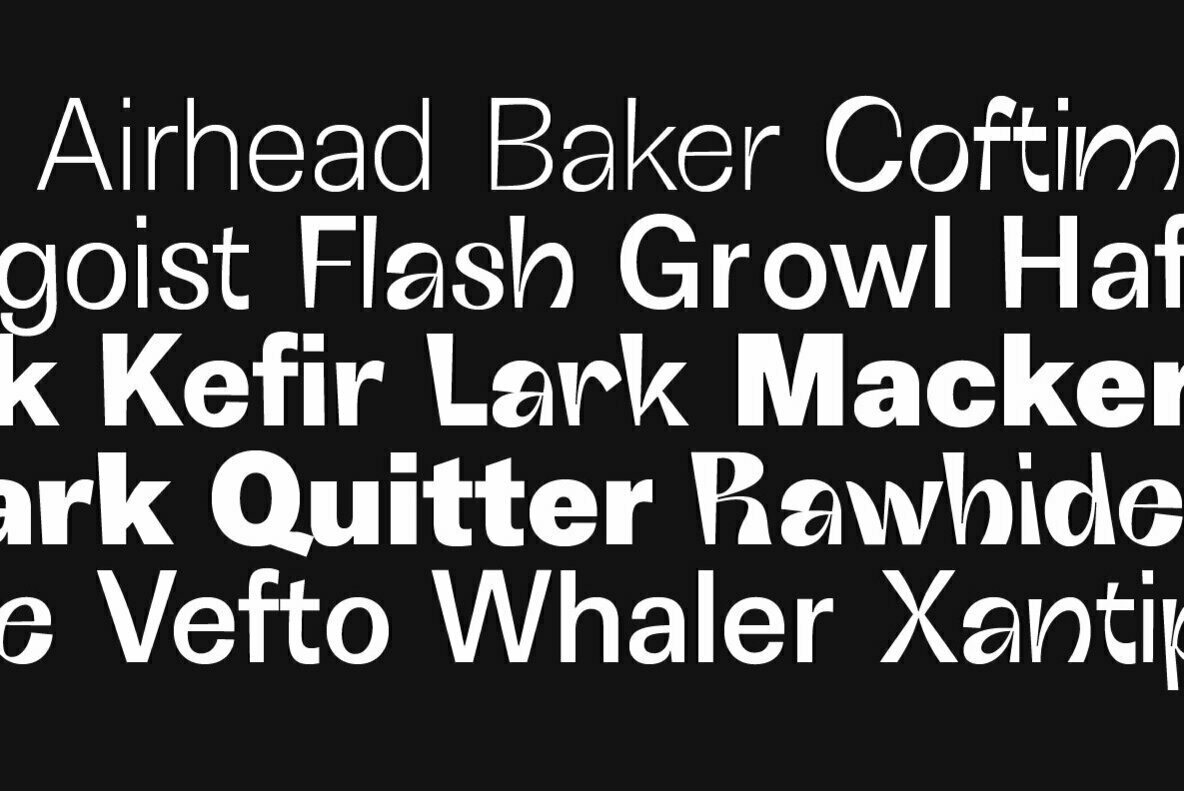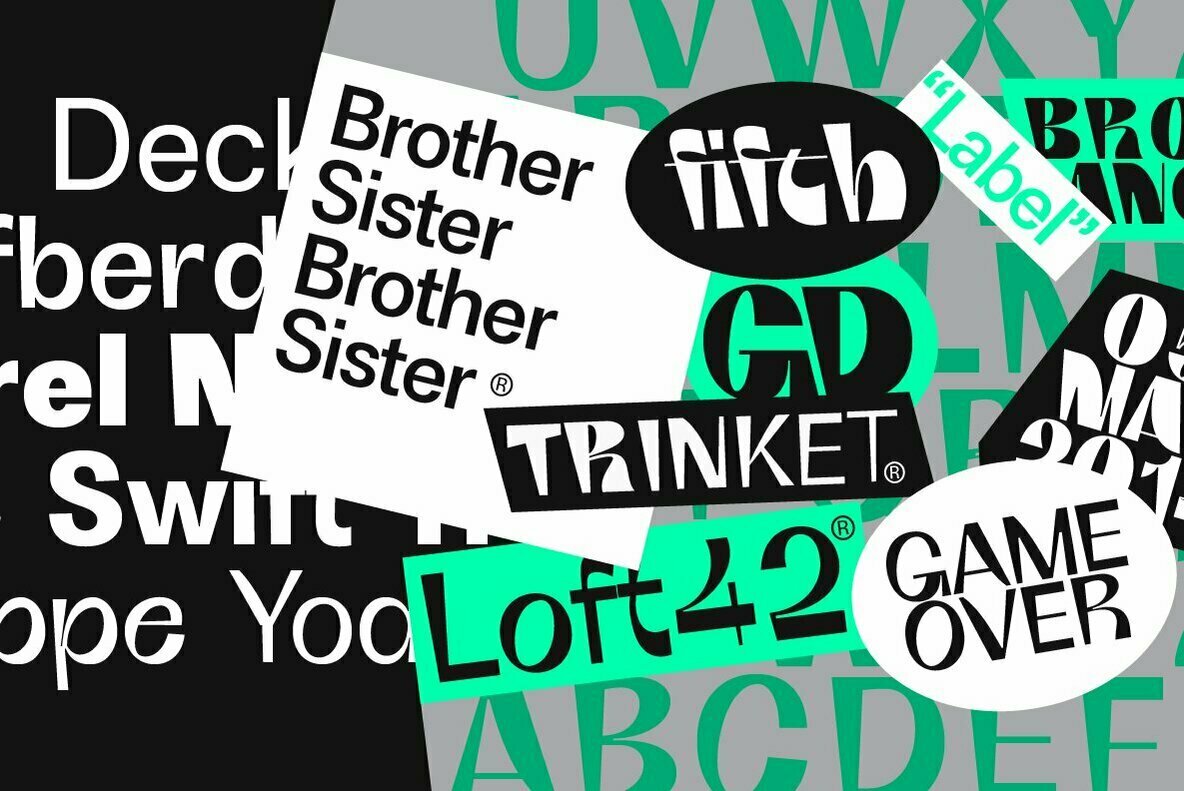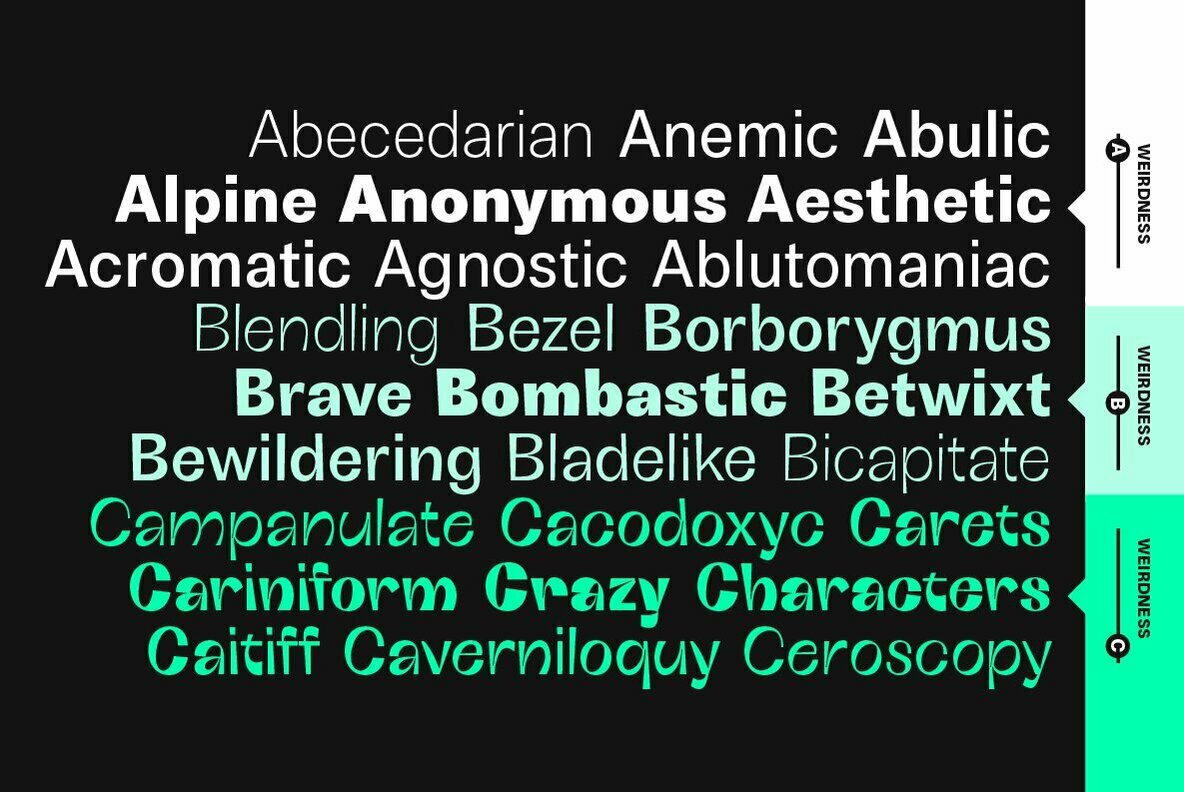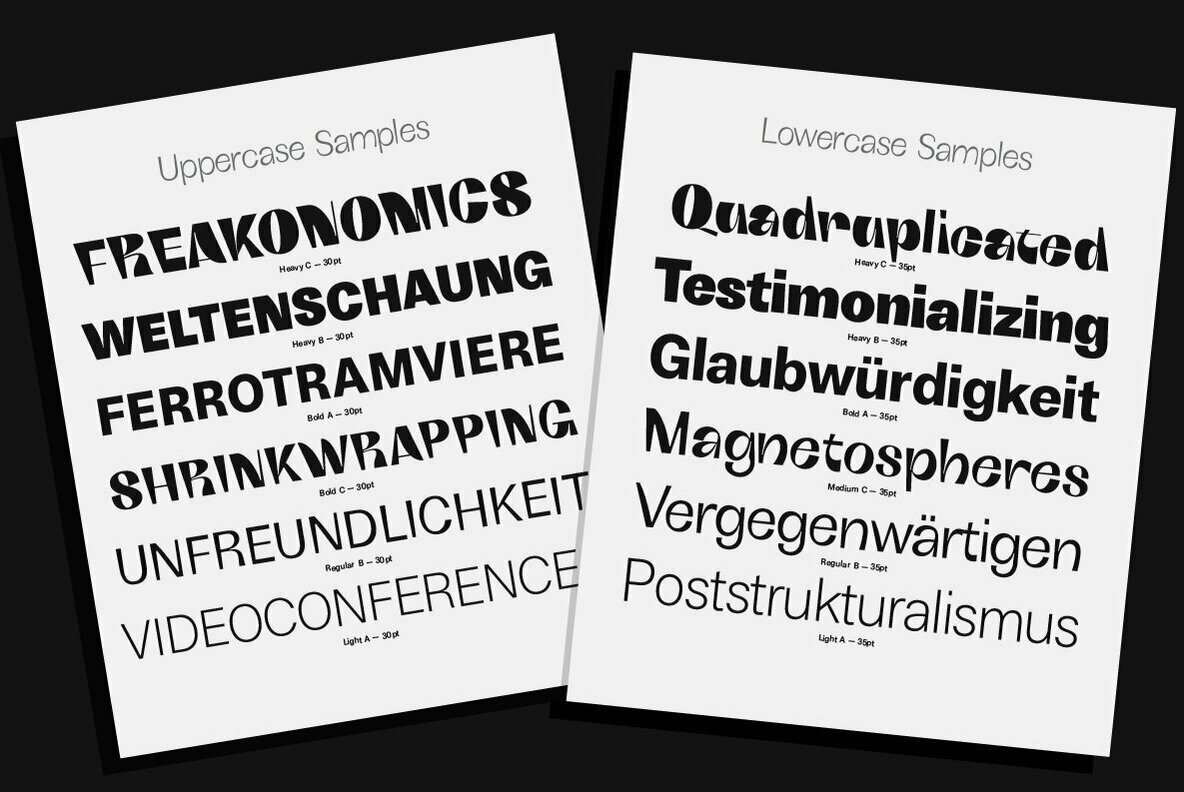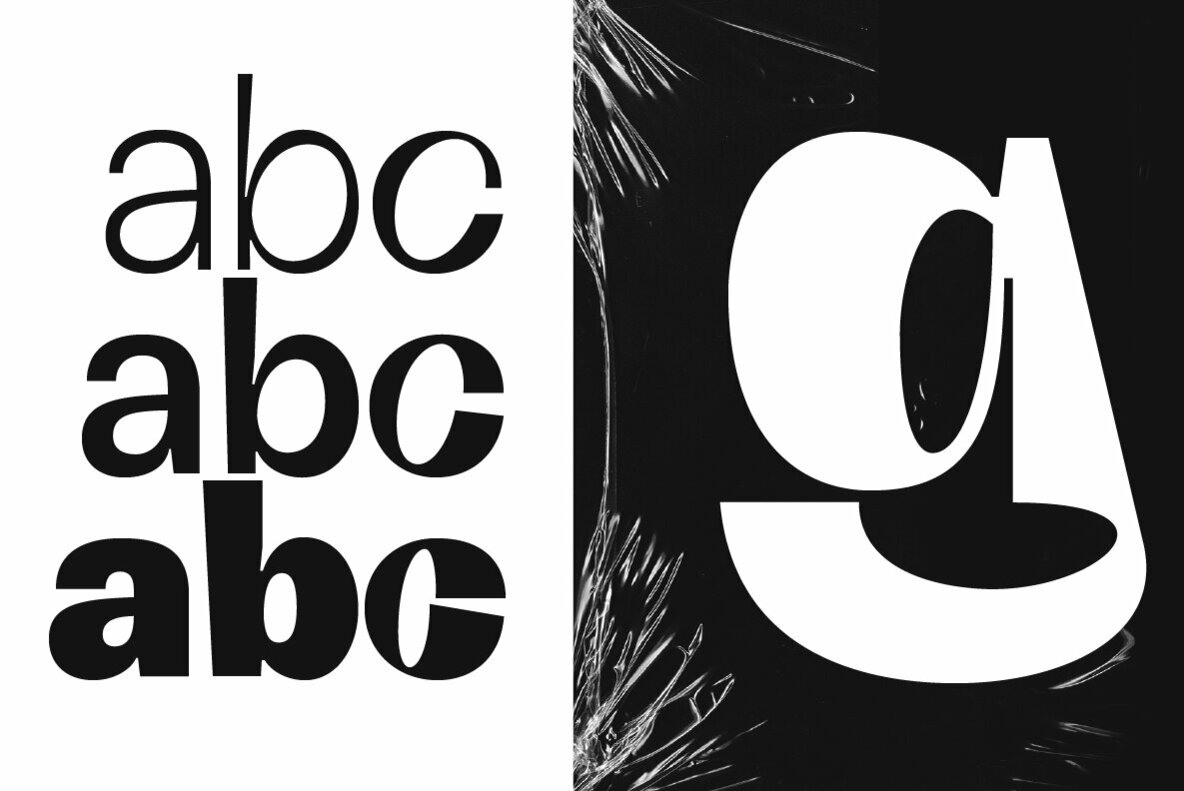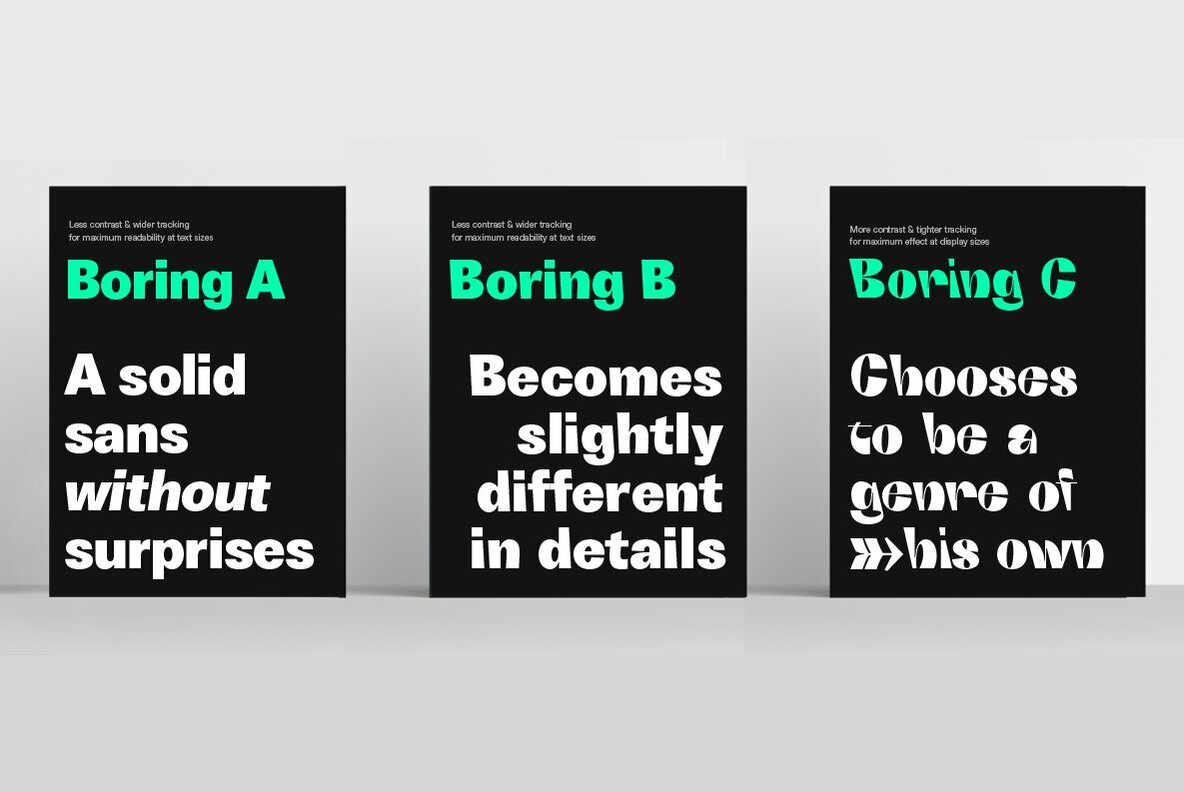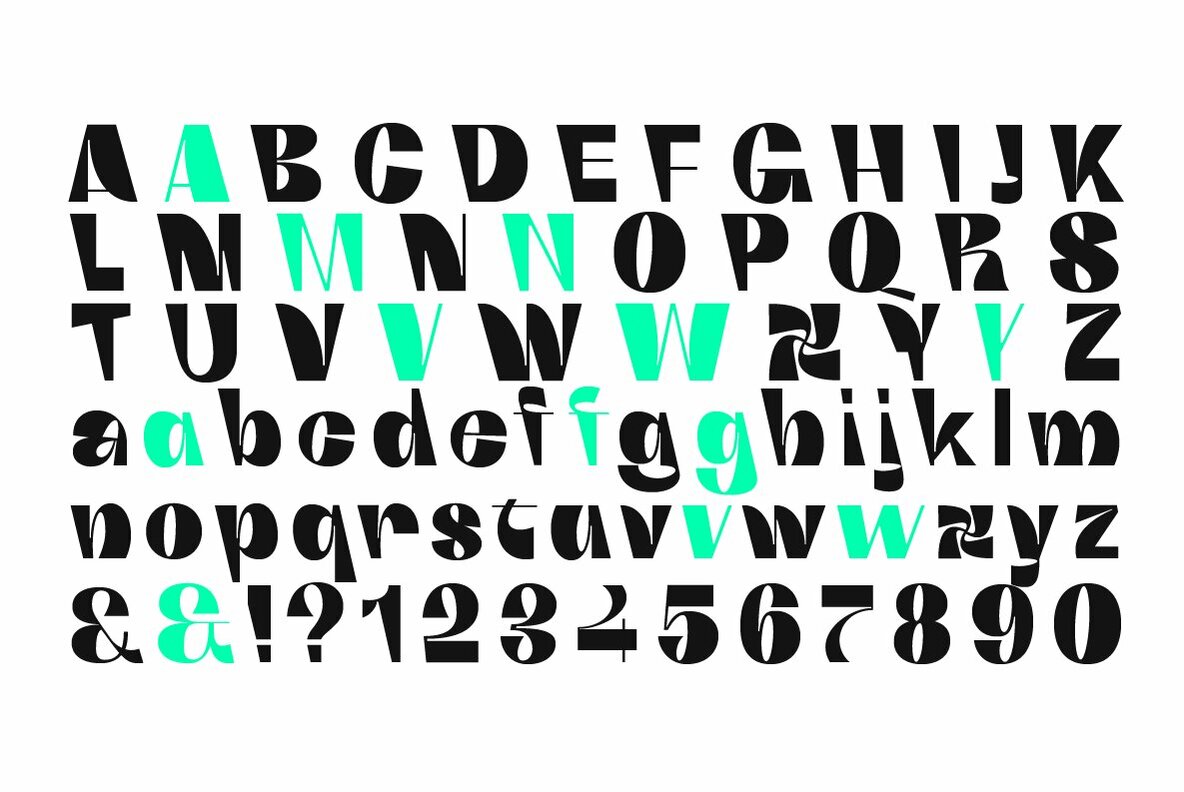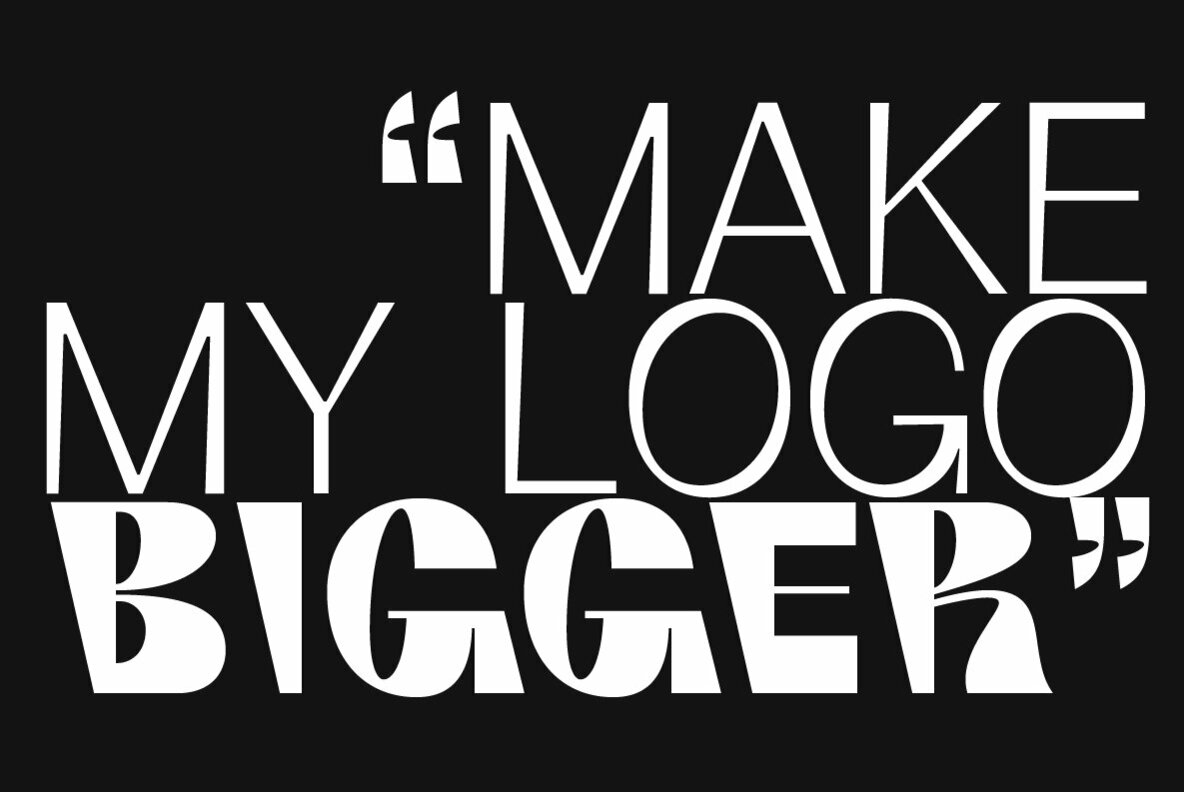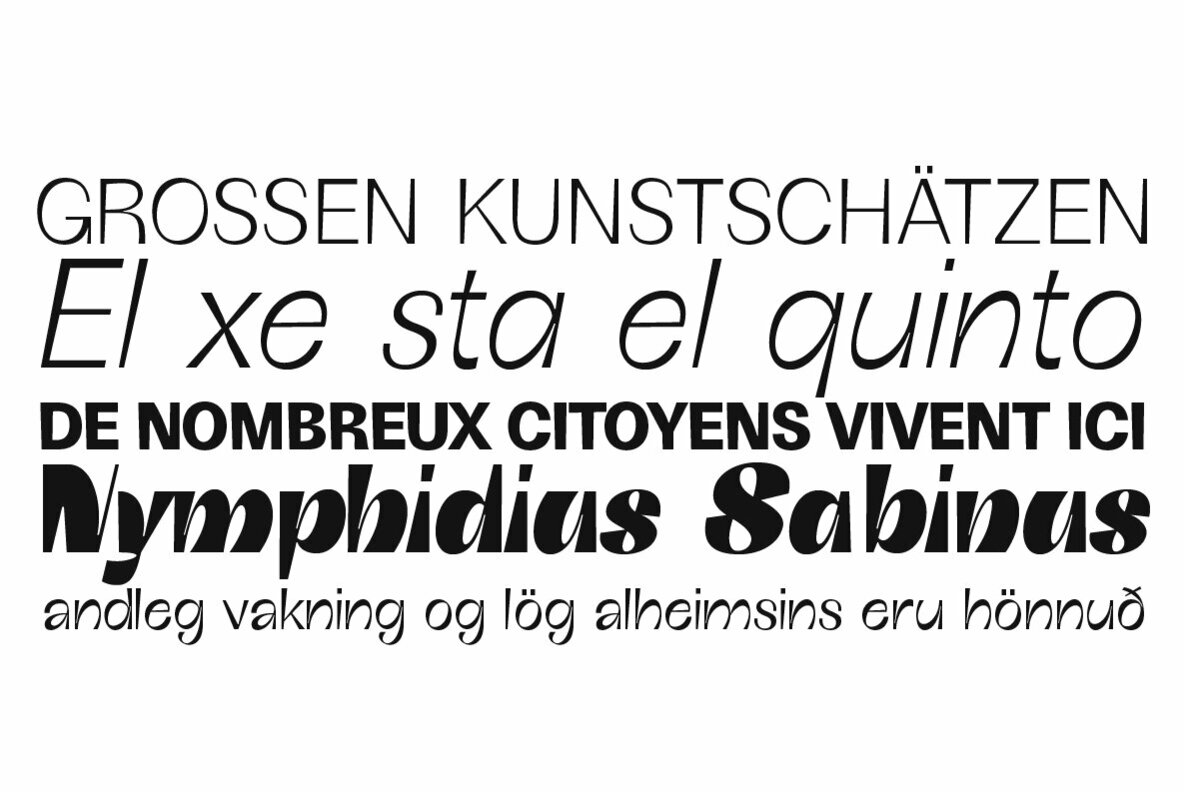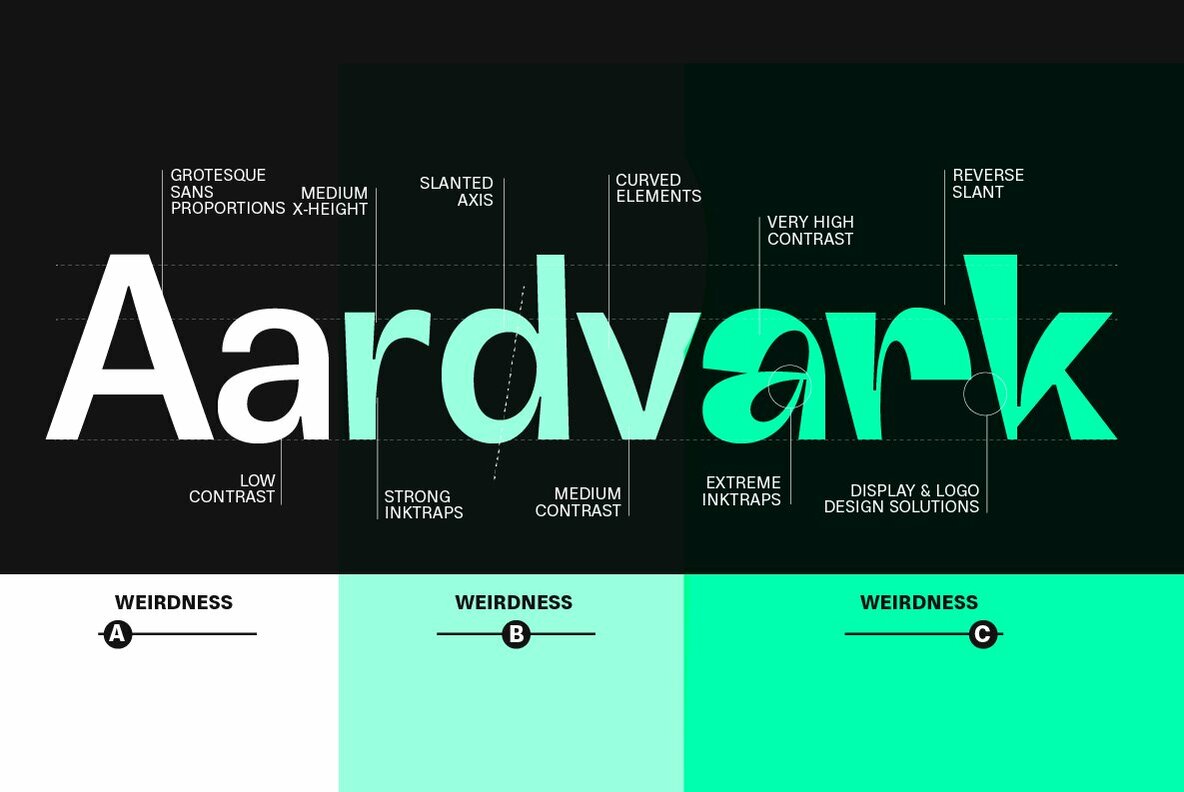
Boring Sans Font
Boring Sans, designed by Cosimo Lorenzo Pancini, is a typeface family designed along two variable axis: weight and weirdness. These two parameters allow designers to explore a full range of variations on sans serif design, starting from a neutral set of proportions and evolving to a strongly contrasted and dynamic treatment, ready to raise eyebrows on social media.
The basic "A" subfamily, developed in five weights plus italics, behaves like a traditional, solid workhorse sans serif, with finely tuned proportions for optimal readability and minimal emotional impact. The "B" subfamily, developed in the same ten weights, shows a more contemporary "brutal" approach, with slanted lines, deep ink traps and stronger contrast. All these features are brought to the extreme in the ten weights of the "C" subfamily, with each letter a bombastic show of exuberant weirdness. Each of the style variant is developed in five weight with matching italics, with a glyph set covering extended latin languages and including many alternate forms and stylistic sets.